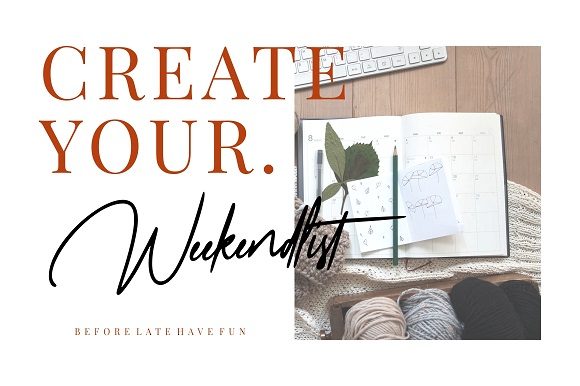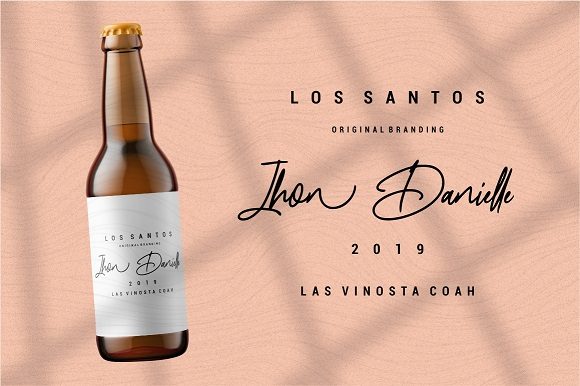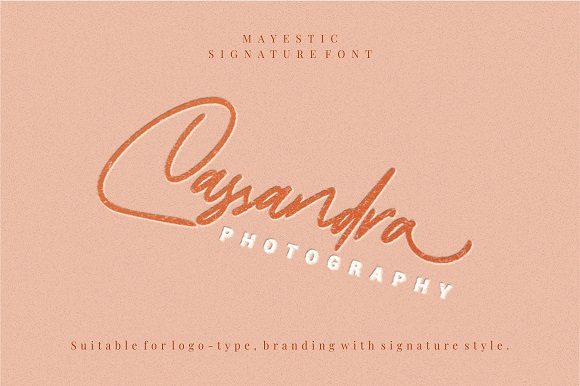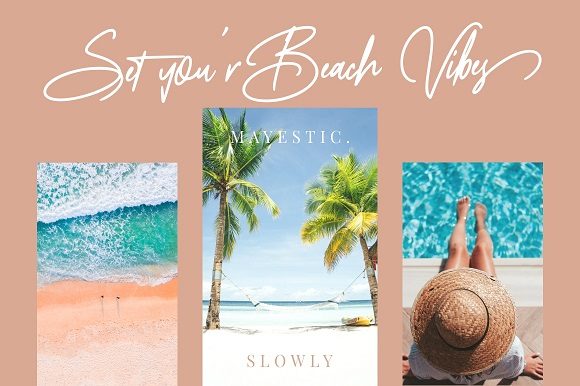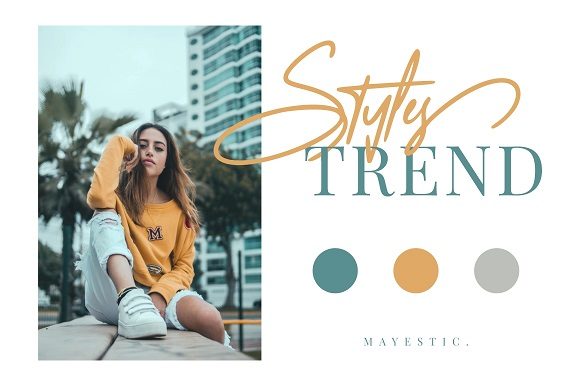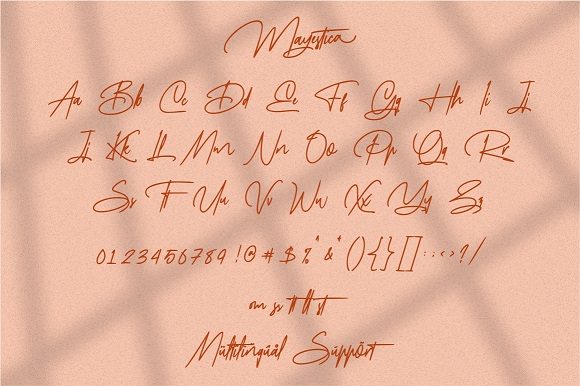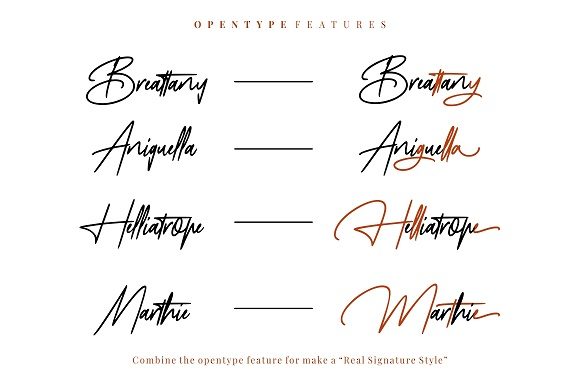
Mayestica Font
About Mayestica Font
Mayestica is a luxurious script font with a sophisticated style. Use it to turn any design project into a true standout!